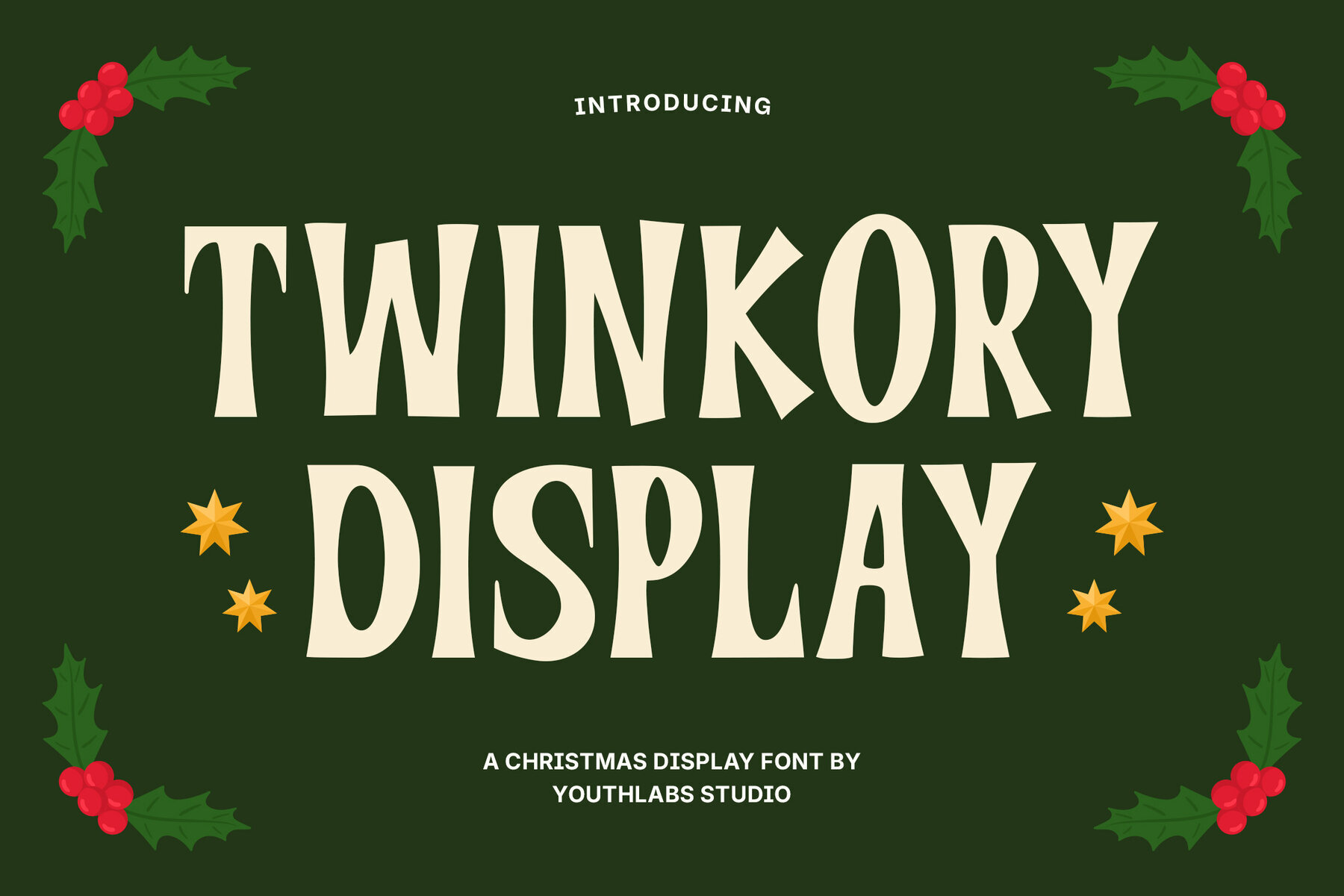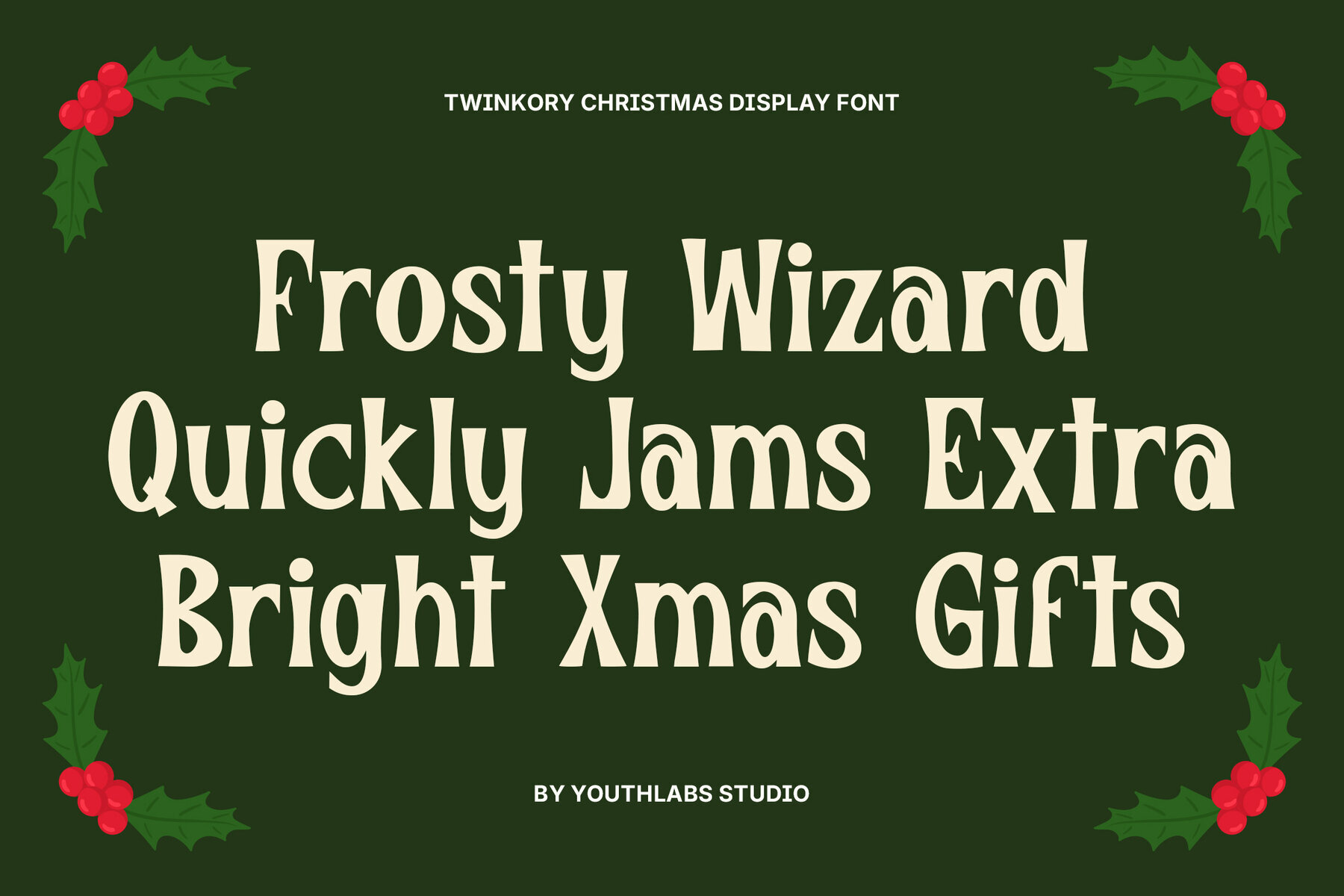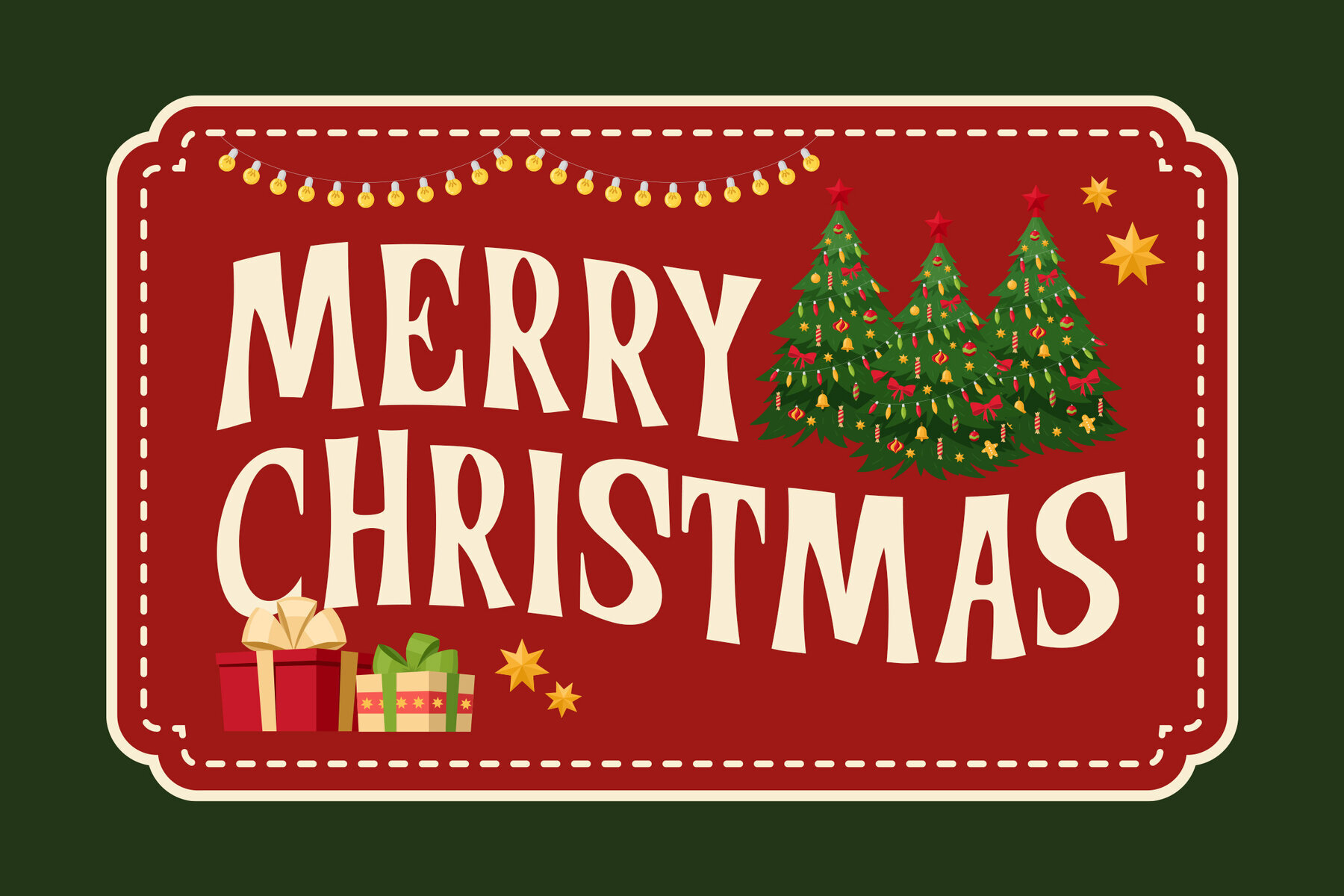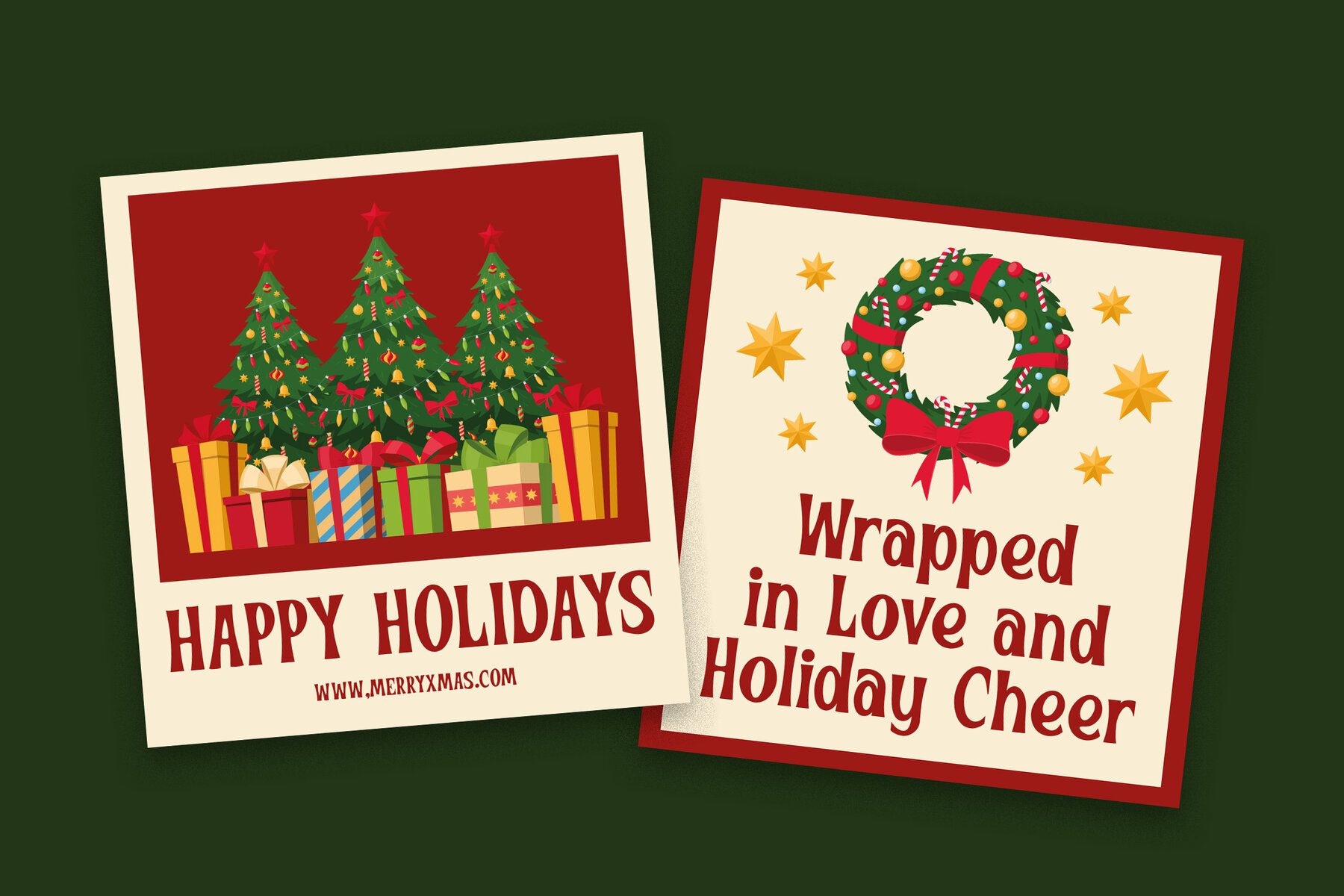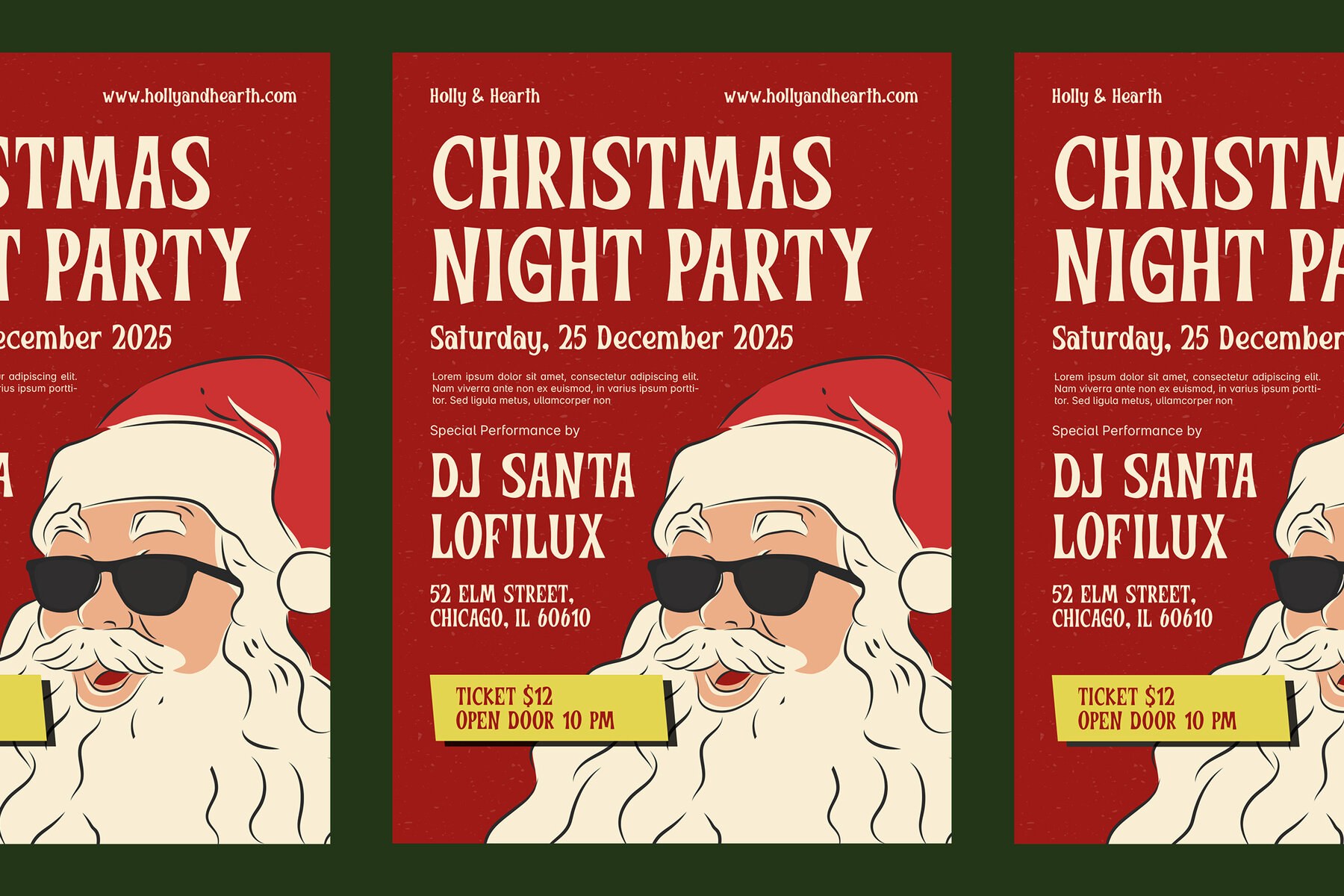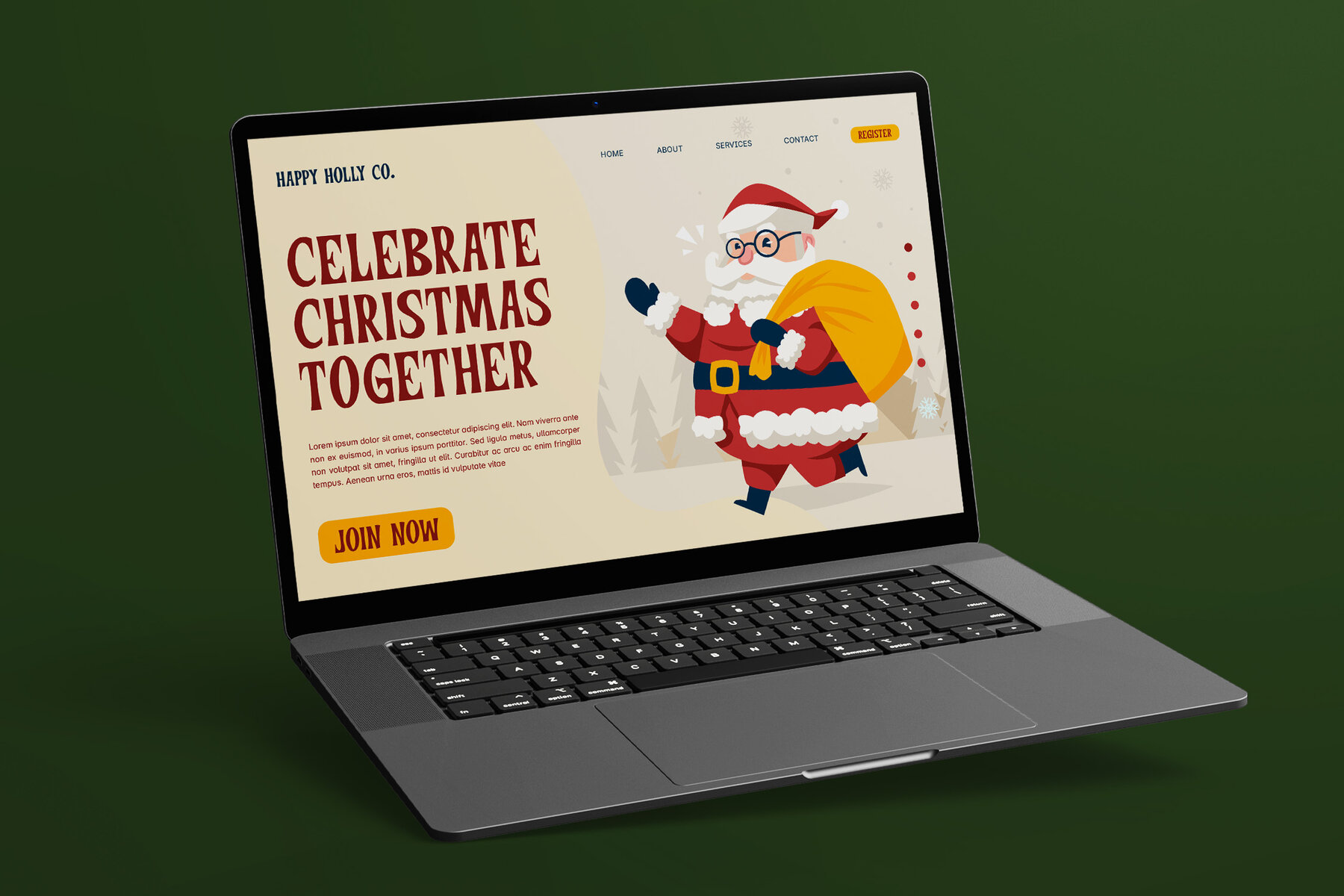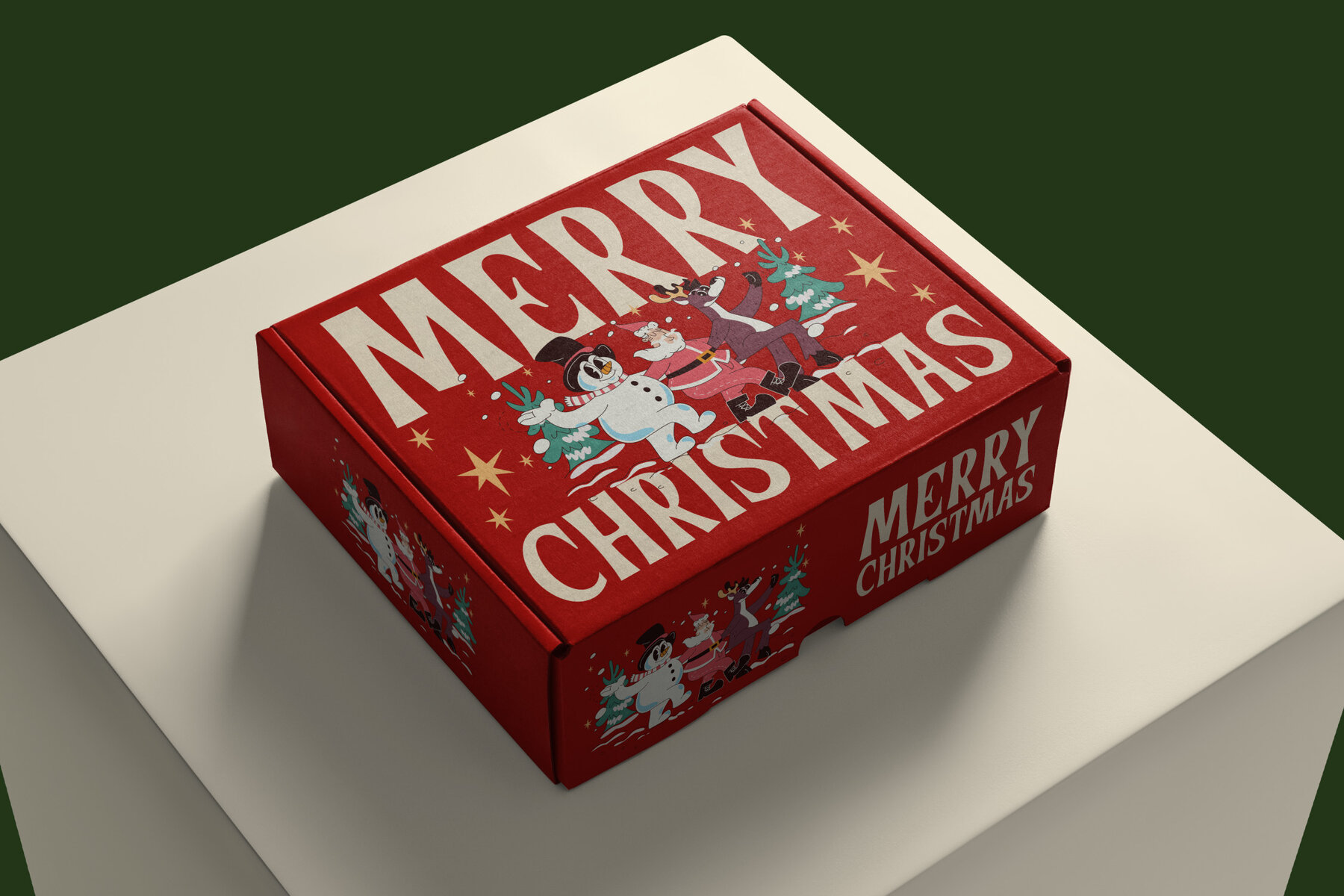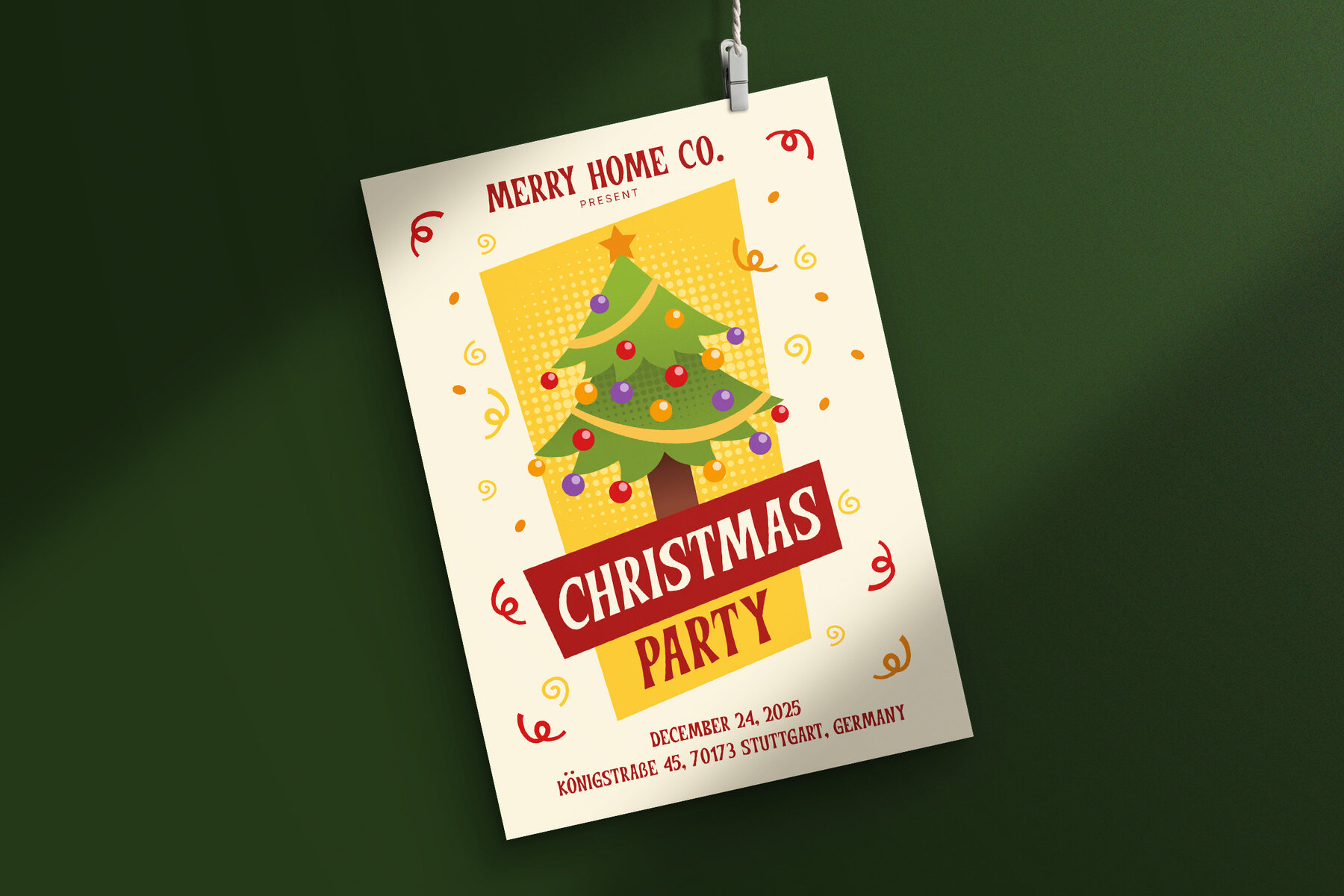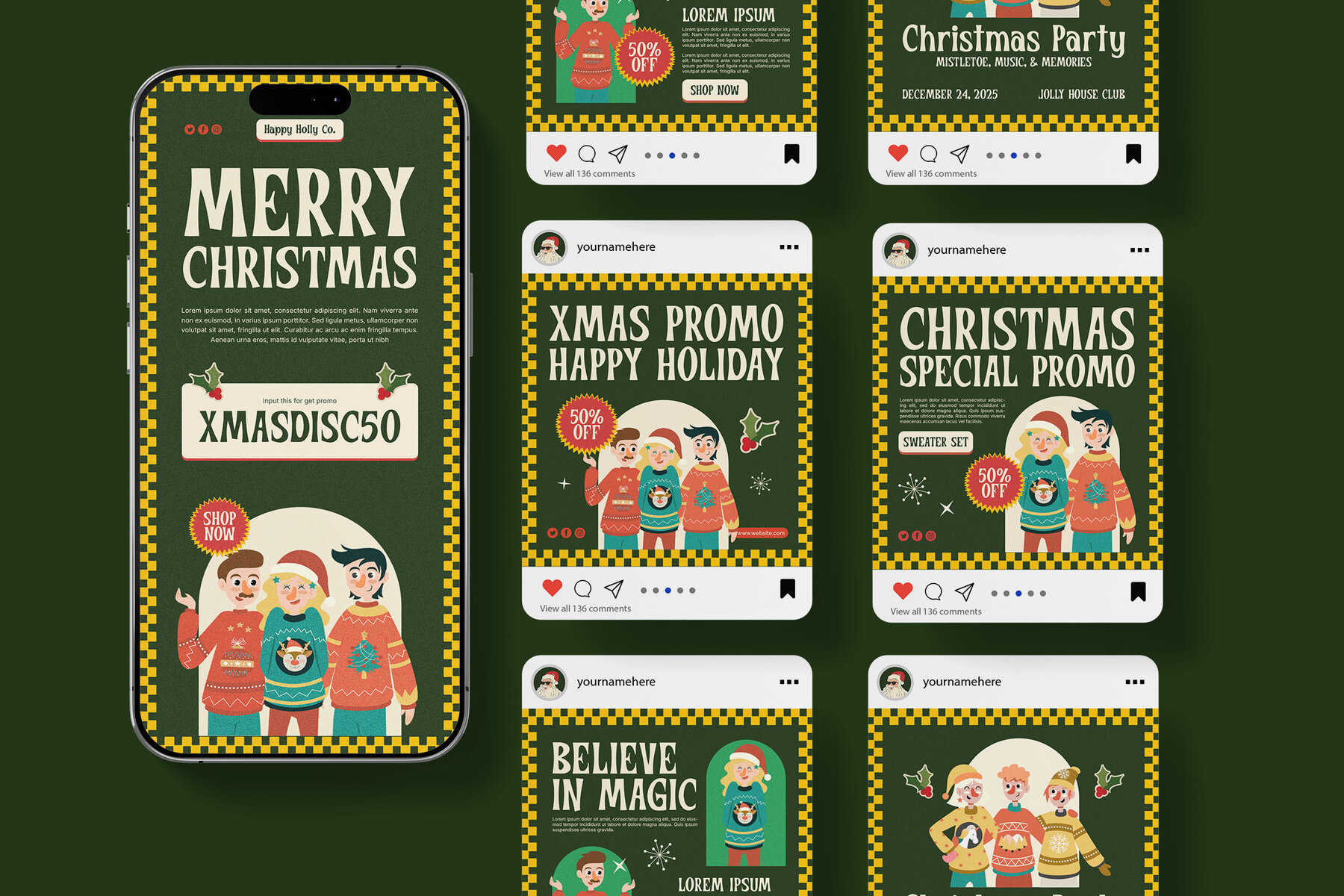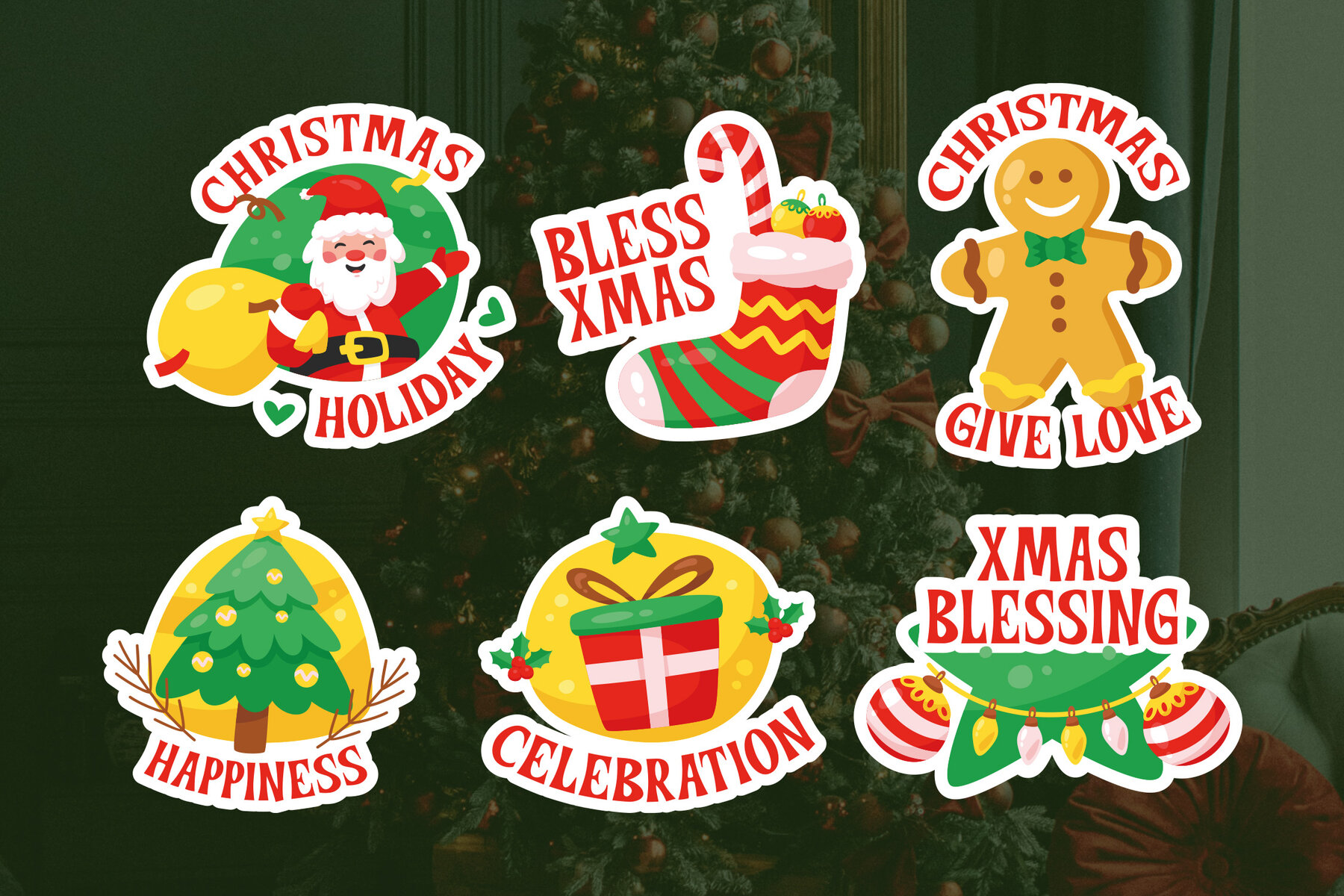
Twinkory Font
Twinkory Regular
Twinkory Display offers a cheerful approach to holiday-inspired lettering. Its bold, rounded strokes and whimsical curves capture the spirit of seasonal celebration. This font stands out in both traditional and digital formats, drawing attention to festive projects with a blend of vintage charm and approachable character. Twinkory Display is well suited for designers seeking a typeface that balances personality and versatility, especially for winter-themed campaigns and branding initiatives. For projects like greeting cards, holiday posters, product packaging, or party invitations, this font lends a warm touch. Its clean, vector-based structure ensures clarity at any size, while the inviting forms support a range of creative concepts, from playful DIY prints to striking social media graphics.Twinkory Display: Playful Typography for Festive Designs